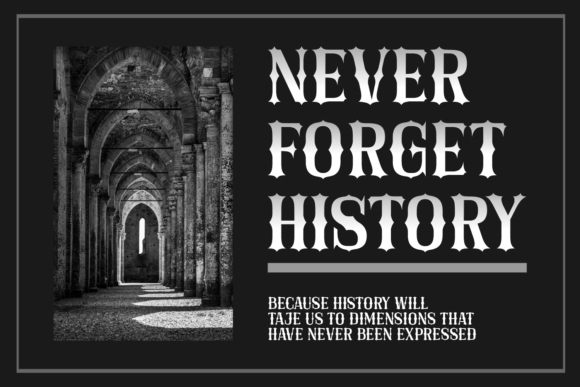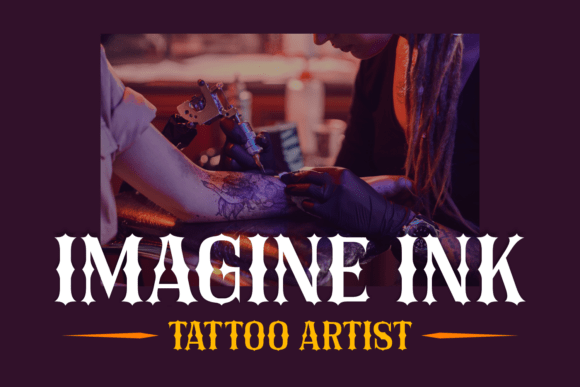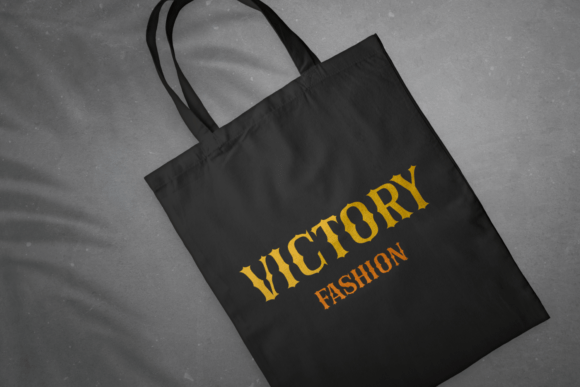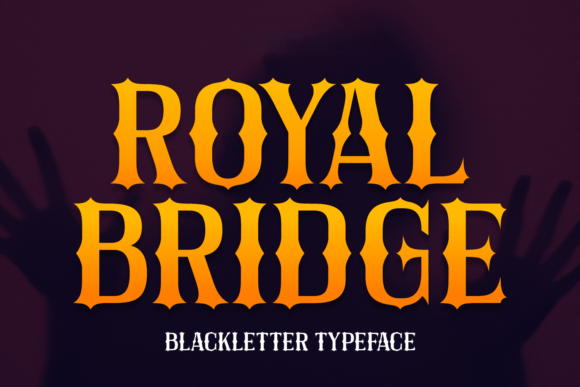
Introduction to Royal Bridge Font
Royal Bridge is a bold blackletter typeface that fuses regal elegance with sharp, dramatic energy.
Featuring spiked serifs, smooth curves, and a striking gradient effect, this font is ideal for eye-catching headlines, fantasy book covers, gothic branding, and music posters Royal Bridge brings vintage drama and modern flair together in one commanding design.
Key Features of Royal Bridge Font
Why Choose Royal Bridge Font?
Royal Bridge Font offers exceptional quality and versatility, making it a valuable addition to your design toolkit. Whether you’re creating for personal projects or commercial use, Royal Bridge Font delivers professional results.